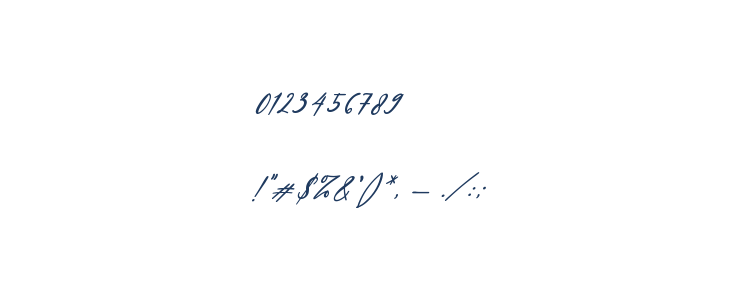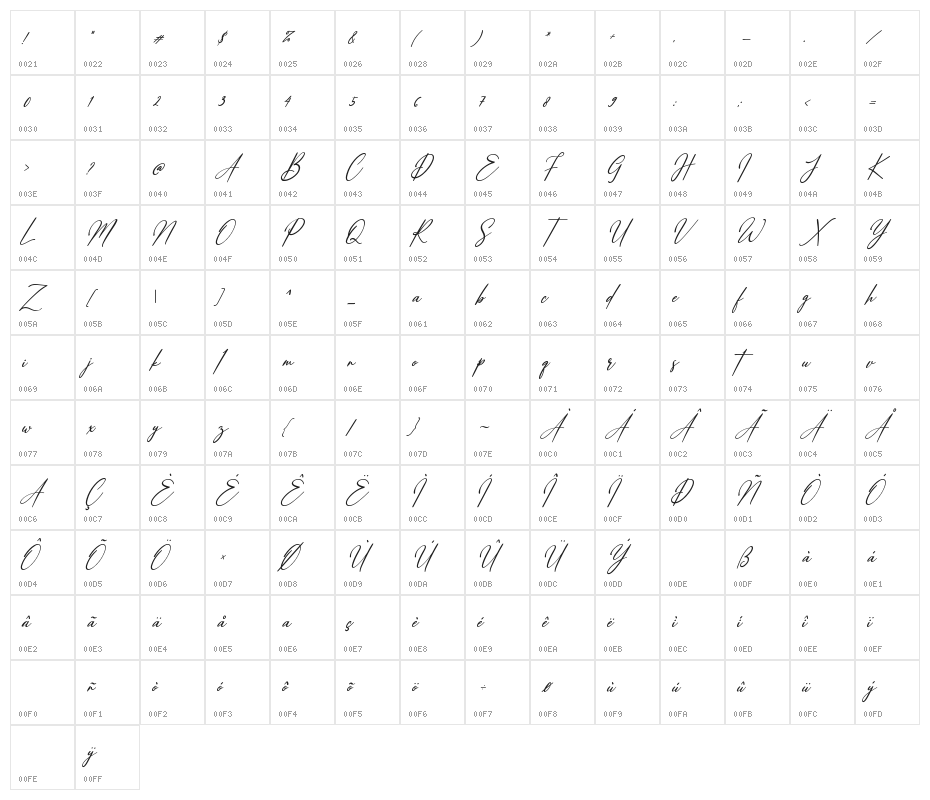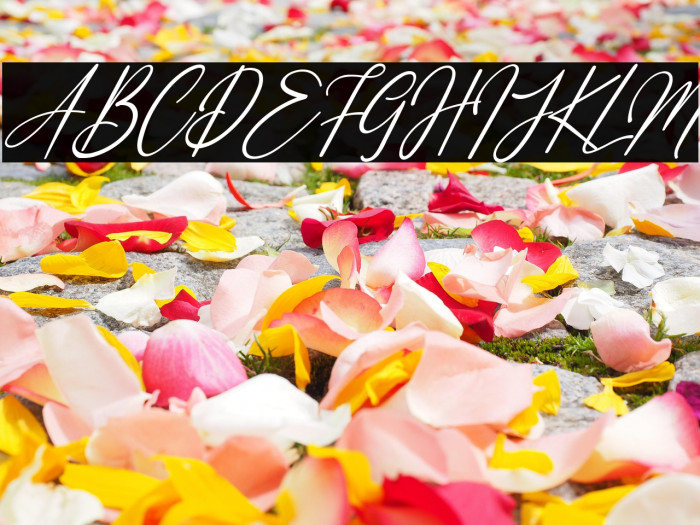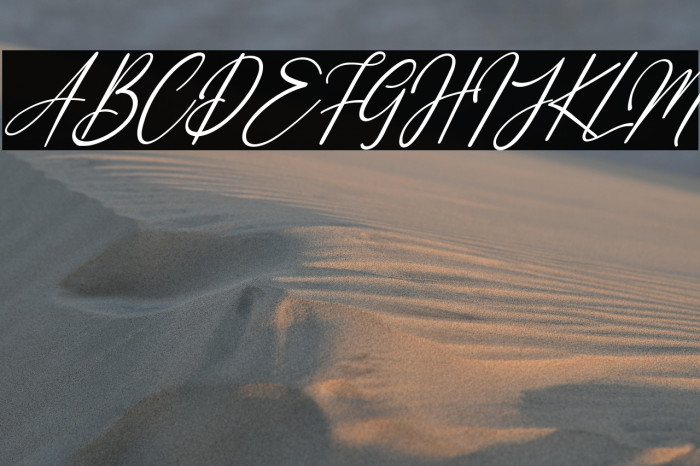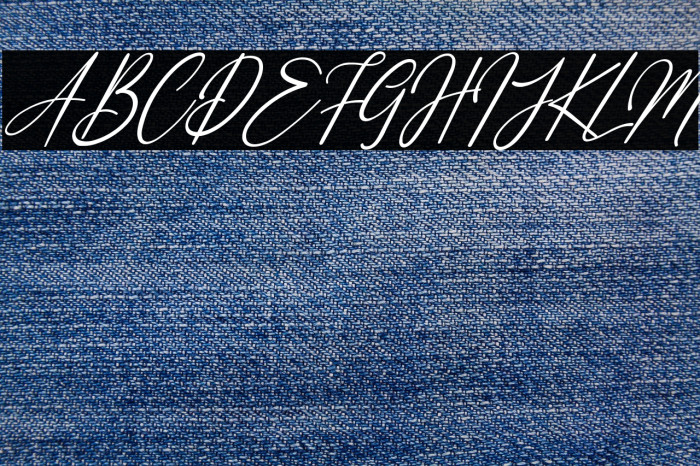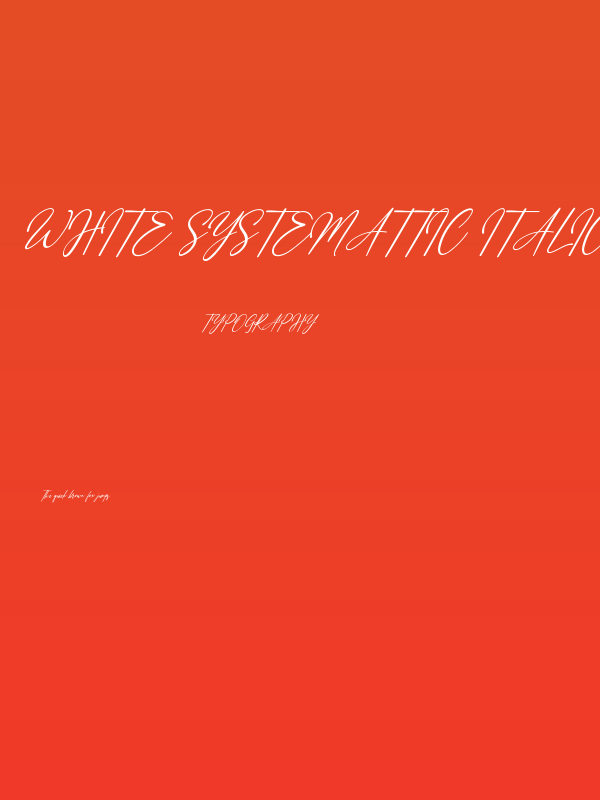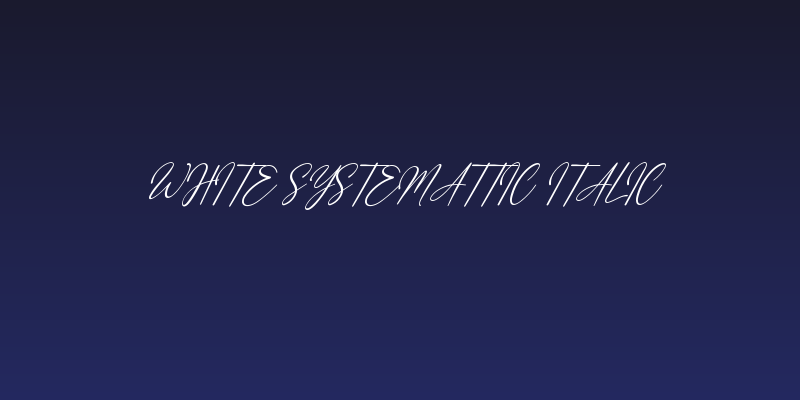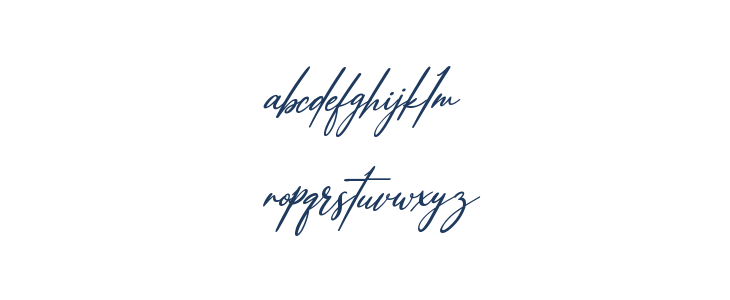
White Systemattic Italic Font
White Systemattic Italic Description
This font exhibits a sophisticated and elegant script style, characterized by its fluid, cursive strokes and graceful curves. The uppercase letters are particularly ornate, with sweeping lines that convey a sense of movement and fluidity. The lowercase letters maintain a consistent style, offering a harmonious blend with the uppercase. The numerals are designed with the same attention to detail, ensuring readability while maintaining the overall aesthetic. Special characters are seamlessly integrated, enhancing the font's versatility. This font is ideal for projects that require a touch of elegance and sophistication.
| Proposed Projects | Ideal for wedding invitations, elegant branding, high-end product packaging, and decorative signage. |